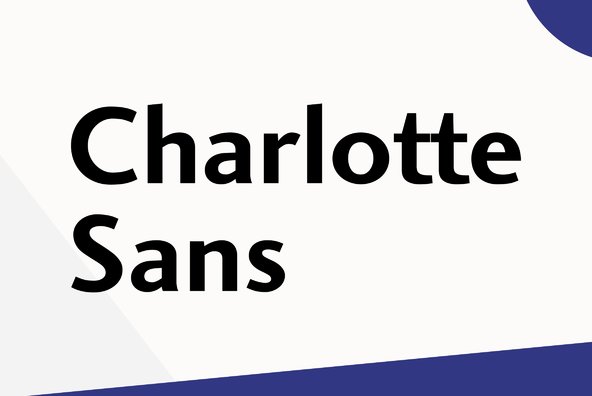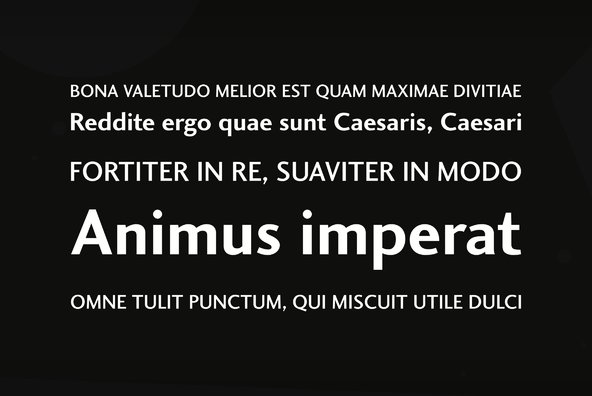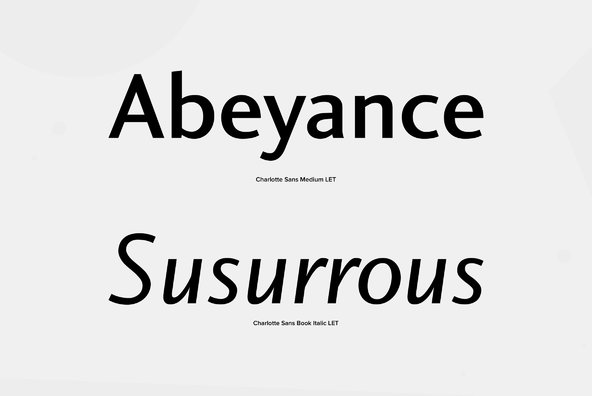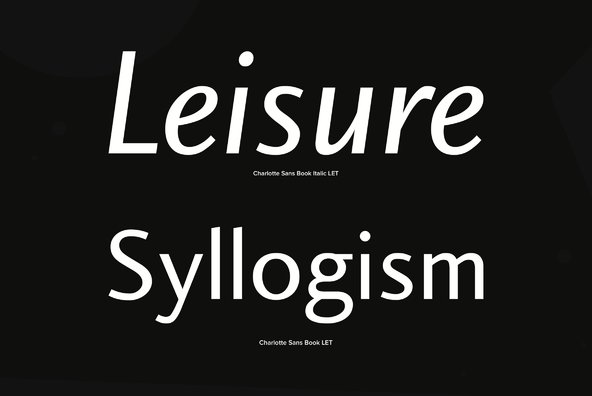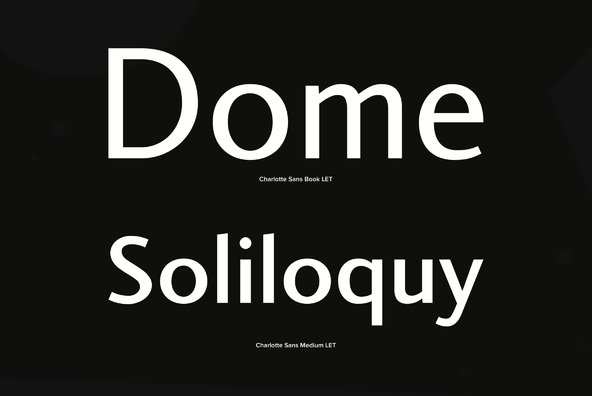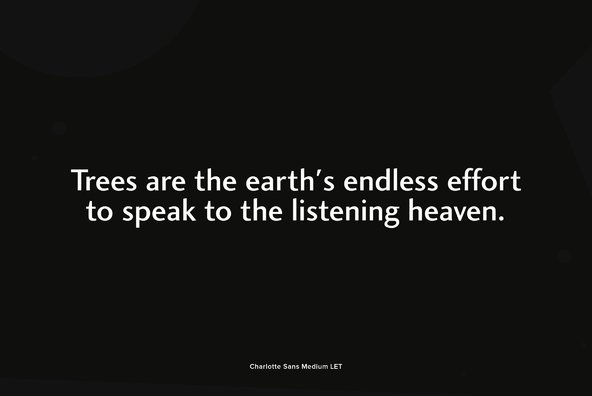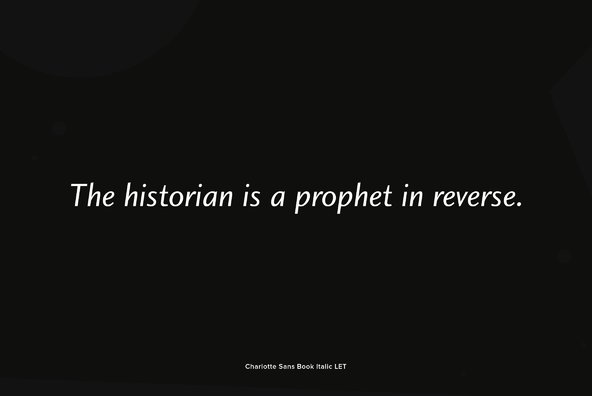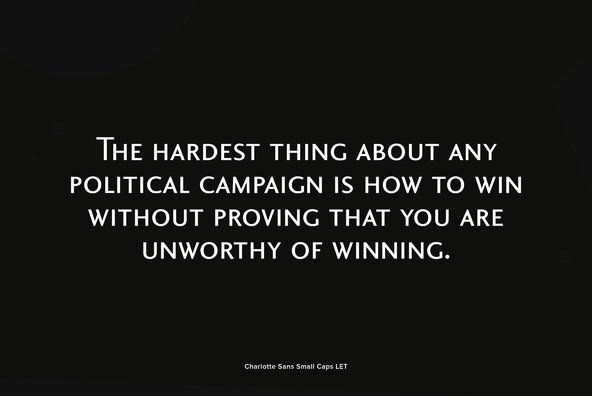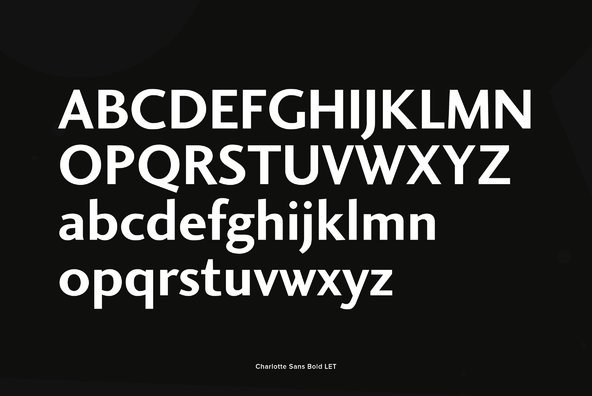
Charlotte Sans
Foundry: Letraset
The Charlotte Sans family of typefaces was designed specifically to co-ordinate with Charlotte roman typefaces in style, weight, and color. Designer Michael Gills created Charlotte Sans on screen with FontStudio software, and has achieved a perfect balance between the humanistic qualities of Gill Sans and the evenness of color in the Frutiger series. Highly versatile on its own, and compatible with its roman counterpart, the Charlotte Sans family offers a spectrum of choices for more creative typographic expression.